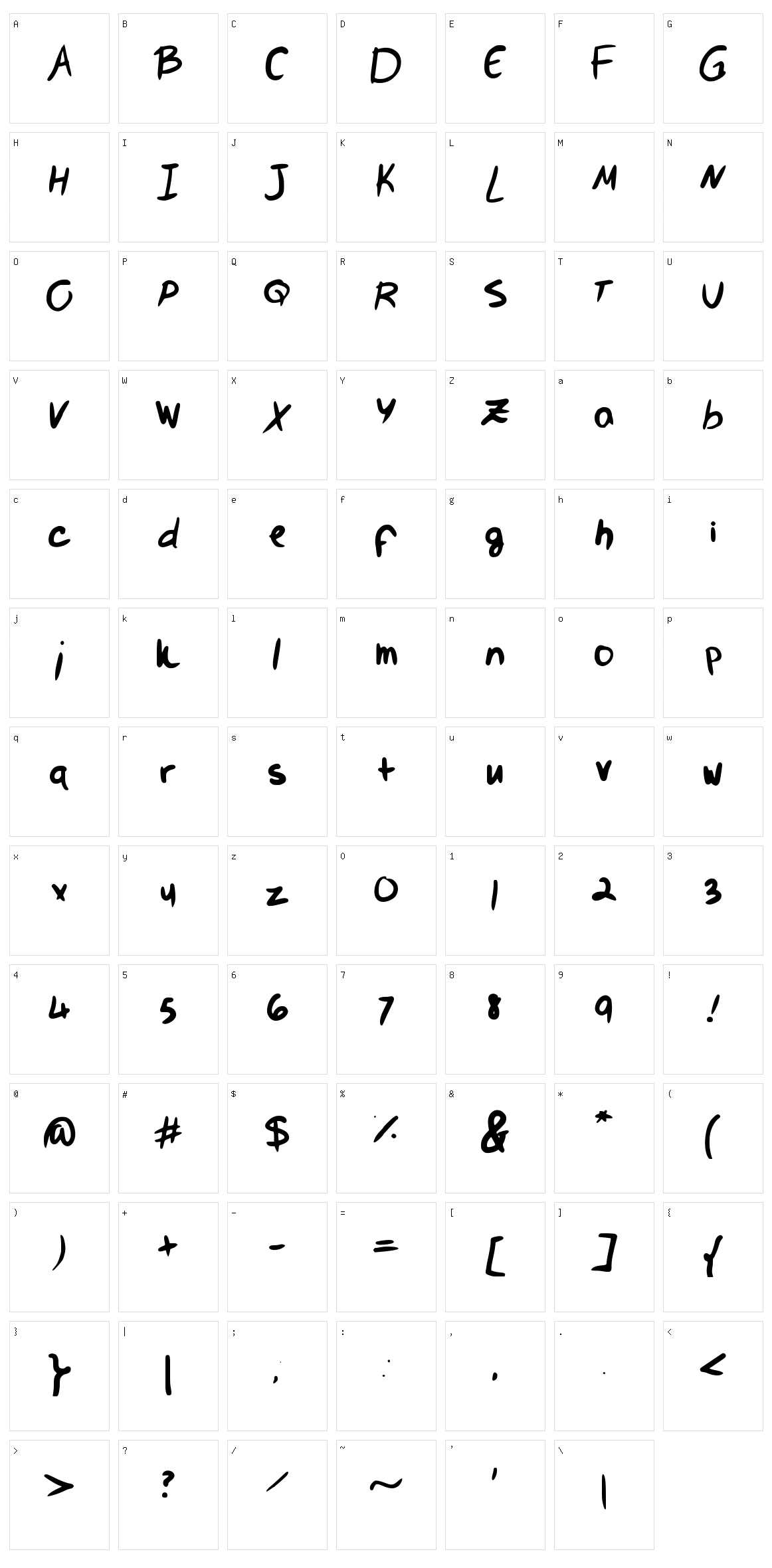
The free font Val's Handwriting is Pretty Messy is carefully designed by Valeria S, showcasing a thoughtful balance of creativity and usability and falls under the Script font style. When you download the ZIP file, it contains only 19.06 KB of font files, making it lightweight and quick to download. Please review the license details below to understand permitted usage and distribution rights. If license information is not available, we recommend using this font for personal projects only or contacting the author directly for commercial usage permissions.